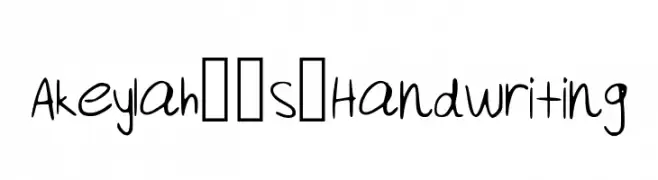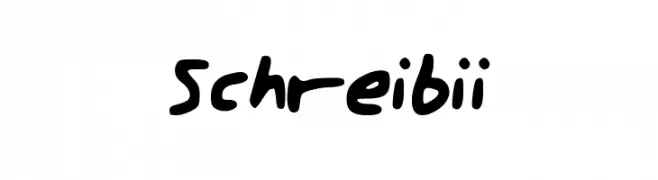
( Fonts by Tom Sagichnich )
A bold, hand-drawn font with a playful and informal style.
( Fonts by Jatzio )
A playful, handwritten font with smooth, flowing lines and a casual feel.
( Fonts by Coco Barth )
A playful, handwritten font with irregular strokes and a casual style.
( Fonts by Joan Pava )
A bold, playful handwritten font with thick strokes and rounded edges.